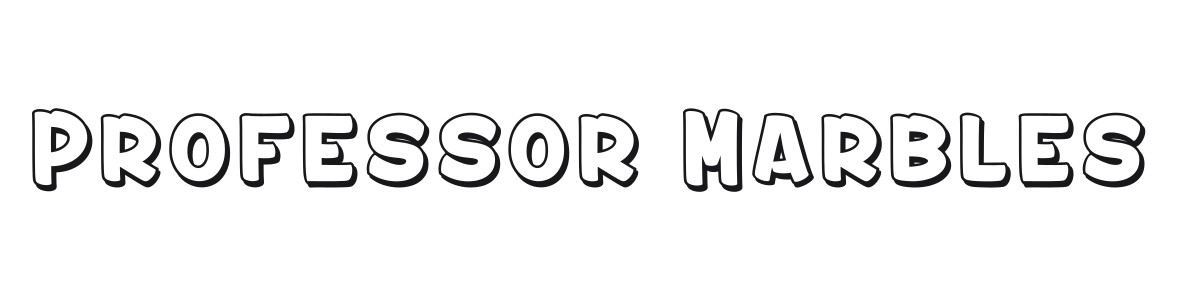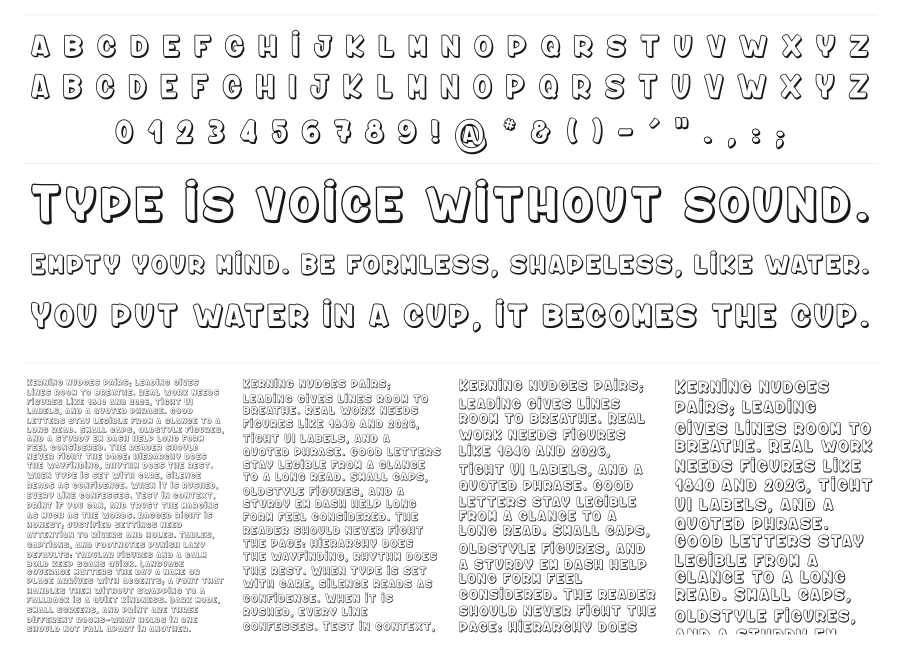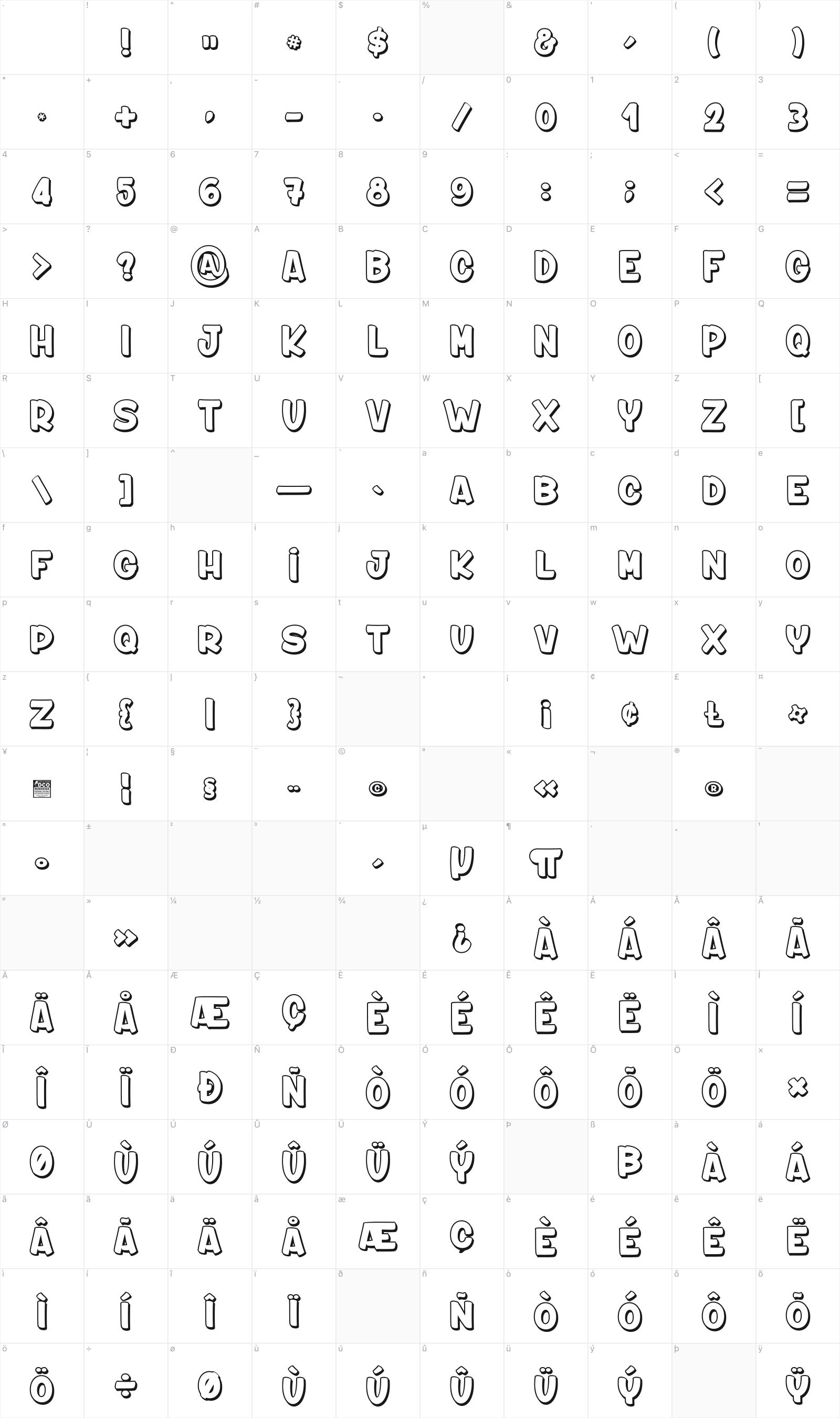
Professor Marbles
Professor Marbles is a thick, bubbly rounded sans with a built-in outline effect that gives every character a cartoon-ready pop. The wide, heavy strokes and fully rounded terminals push it firmly into comic-book and children's media territory. It reads immediately as fun, which makes it a strong choice for packaging, game titles, or anything aimed at a younger audience.